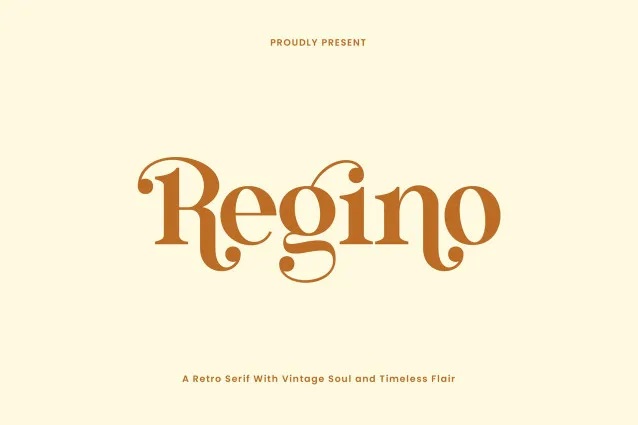
Regino Font
Regino is a serif typeface that draws inspiration from high-fashion magazines and boutique publications, giving it a timeless and elegant feel. Its clean lines and vintage style bring to mind the charm of classic signage and print.
Regino Serif Font